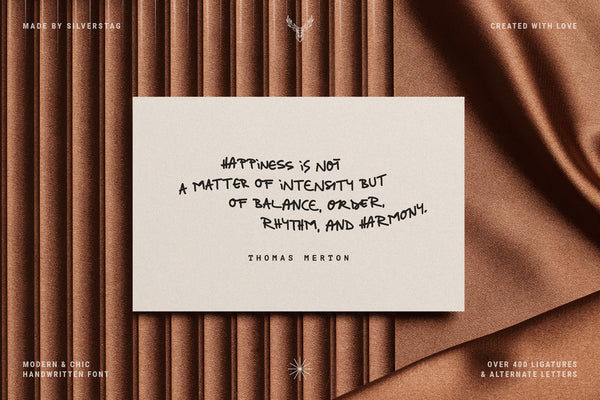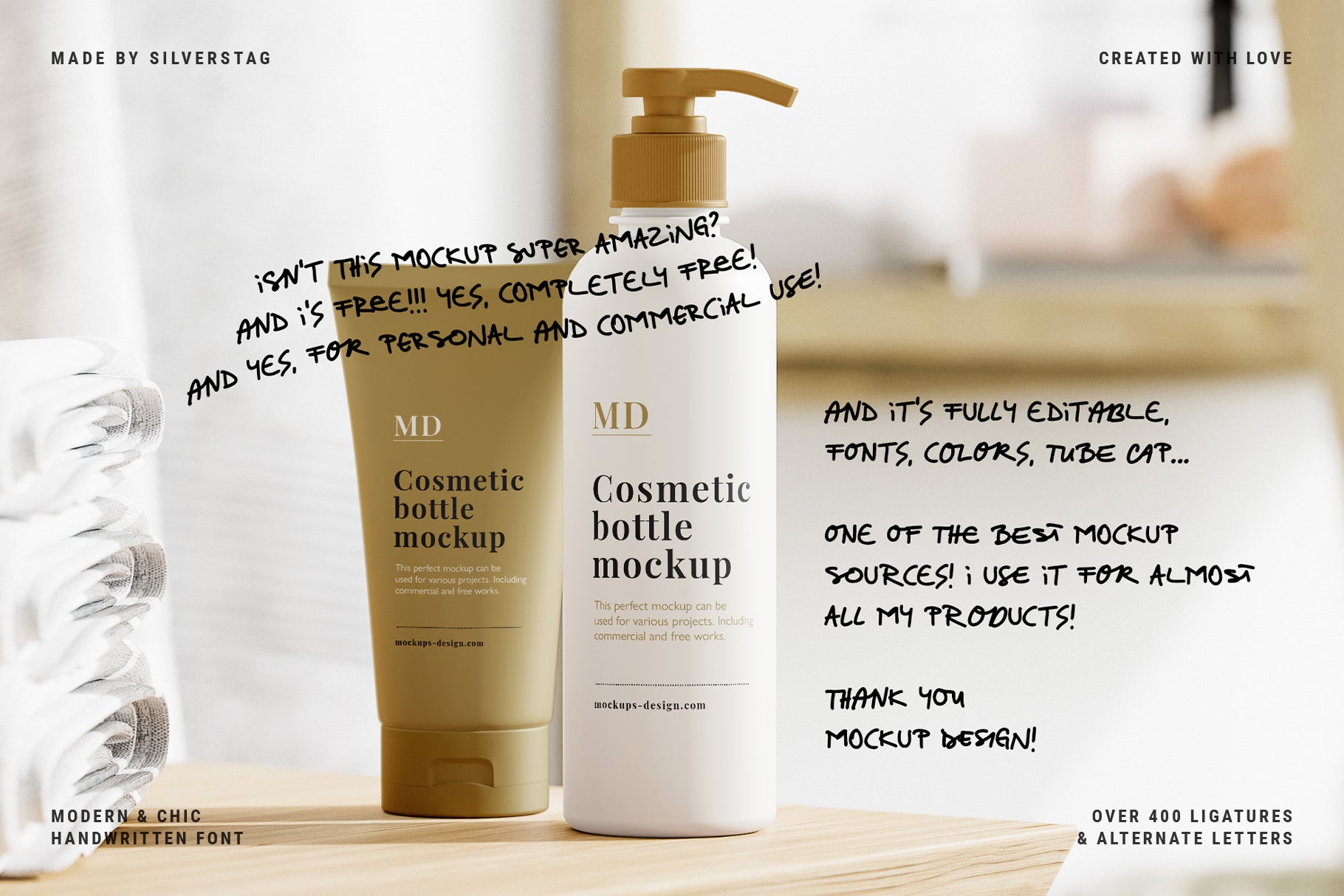
Citrus Shore is a fresh, lively handwritten marker font that radiates energy and personality. With over 400 alternate letters and ligatures, it’s built for designers who want to break from the ordinary and craft expressive, eye-catching typography.
Featuring smooth brush strokes and a modern handwritten feel, Citrus Shore is the perfect fit for invitations, branding, social media graphics, packaging, and lifestyle content. Whether you’re designing for a fun, upbeat brand or adding character to personal projects, this font brings a refreshing, dynamic edge to your work.